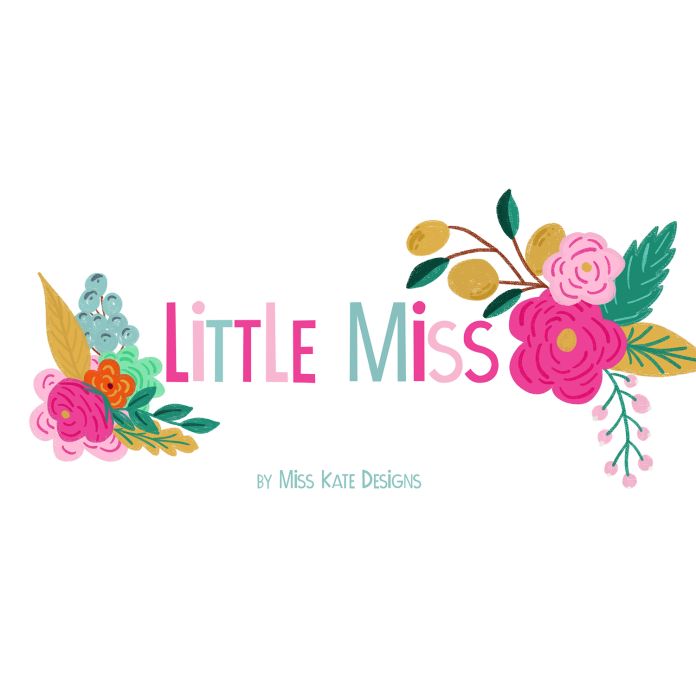
Little Miss is a fun, whimsical font! This font is handwritten, and is perfect for card making, scrapbooking, crafting, or party invitations! This font embodies a sense of fun and lightheartedness, making every word feel like a celebration. There are endless possibilities with this fun font! Ready for parties, gifts, decor, planner stickers, classrooms, scrapbook pages and more! This font is from Miss Kate Designs. Check out our other files for fun SVG cut files, font's and cute clipart. Where all of our SVG's are easy to cut and easy to layer!